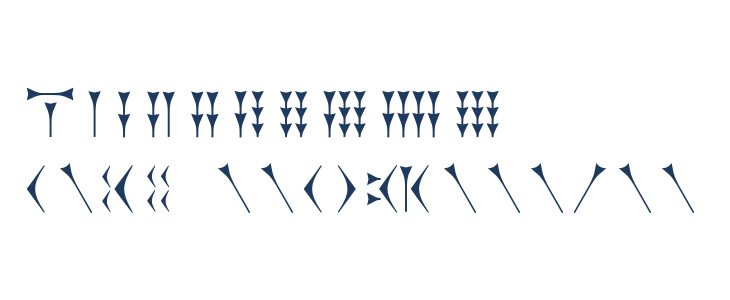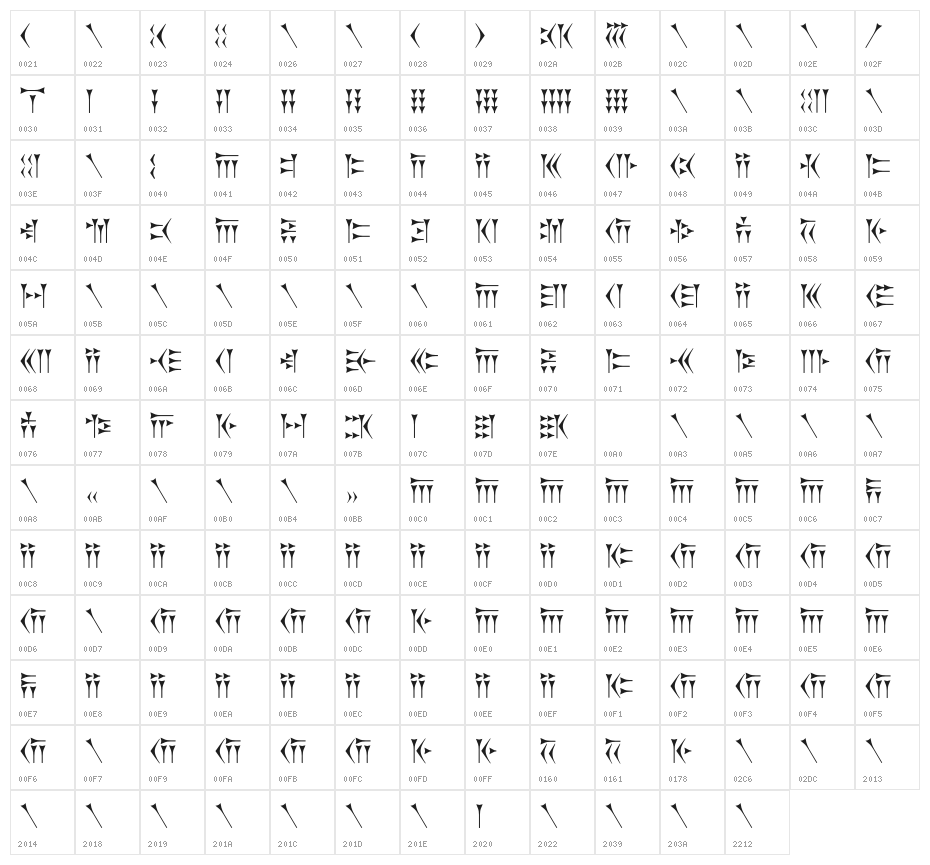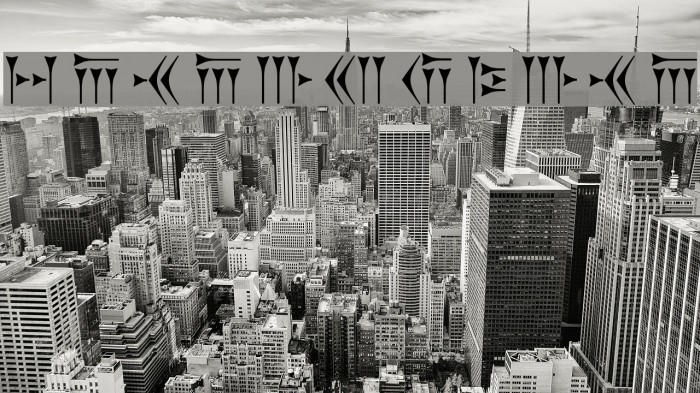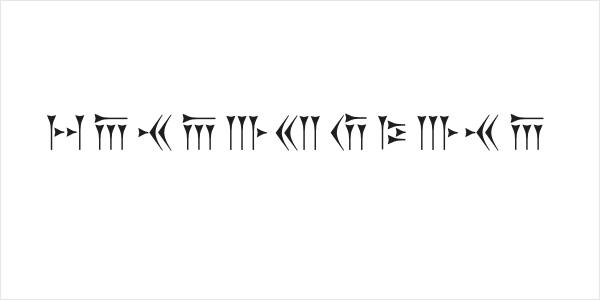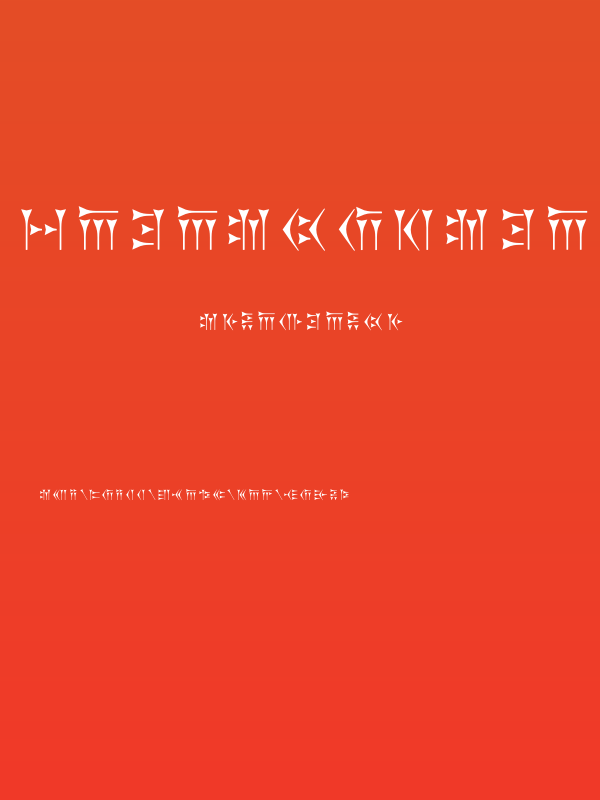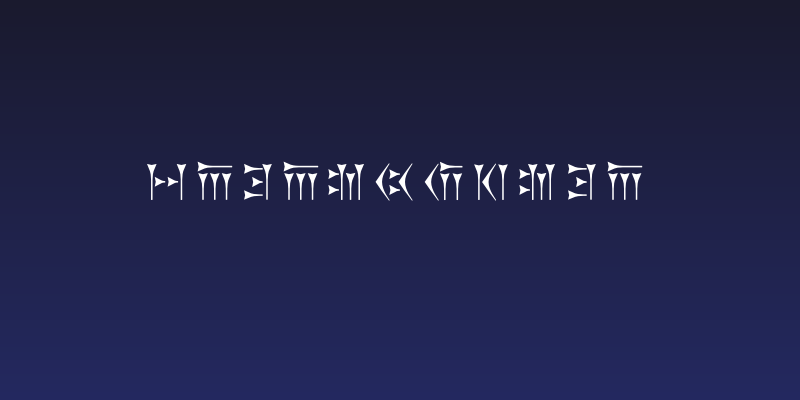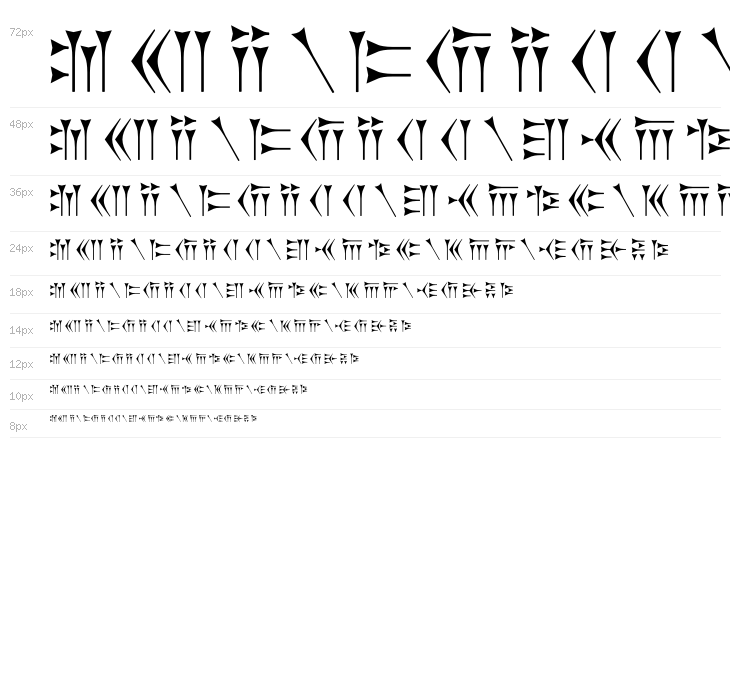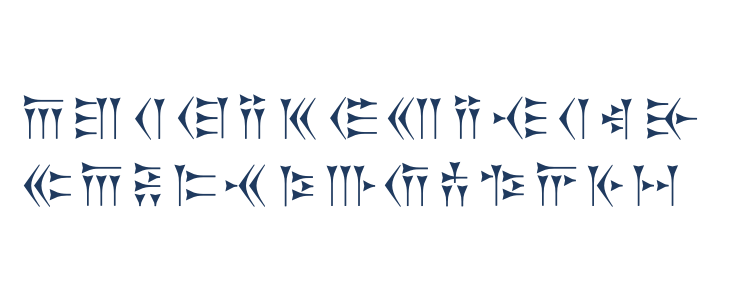
Zarathustra Font
Zarathustra Description
This font features a unique and ancient-inspired design, reminiscent of cuneiform script. Each character is composed of angular, wedge-shaped strokes that give it a distinct, historical appearance. The characters are bold and striking, with a consistent thickness throughout, creating a uniform look. The spacing between characters is tight, emphasizing the compactness and continuity of the script. This font is ideal for projects that aim to evoke a sense of antiquity or mystery, making it suitable for themed designs or artistic endeavors.
| Overall Style | Ancient, Decorative |
| Use Case | Logos, Artistic projects, Themed designs |
| Proposed Projects | Ideal for historical-themed designs, artistic projects, or creating a mysterious atmosphere. |